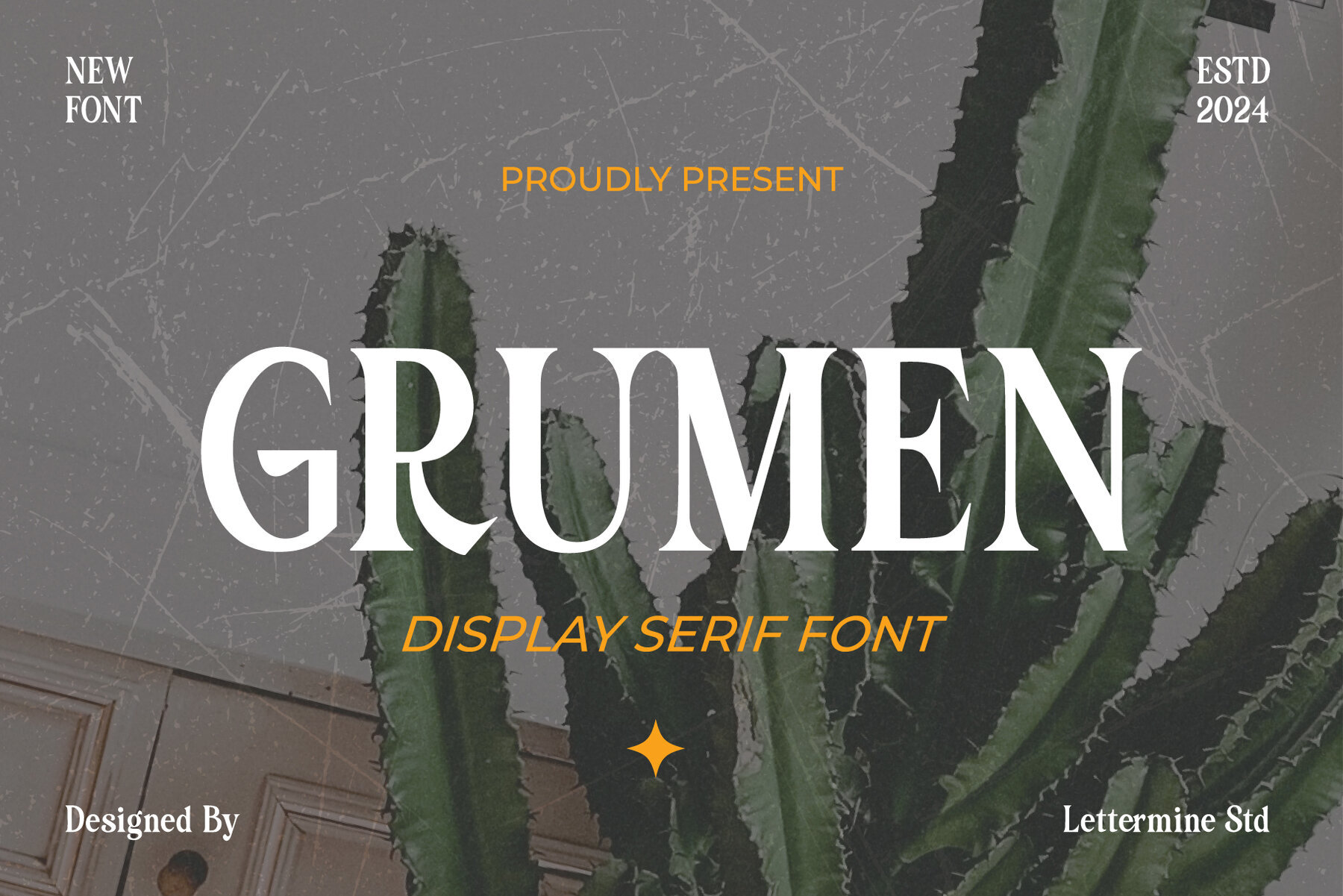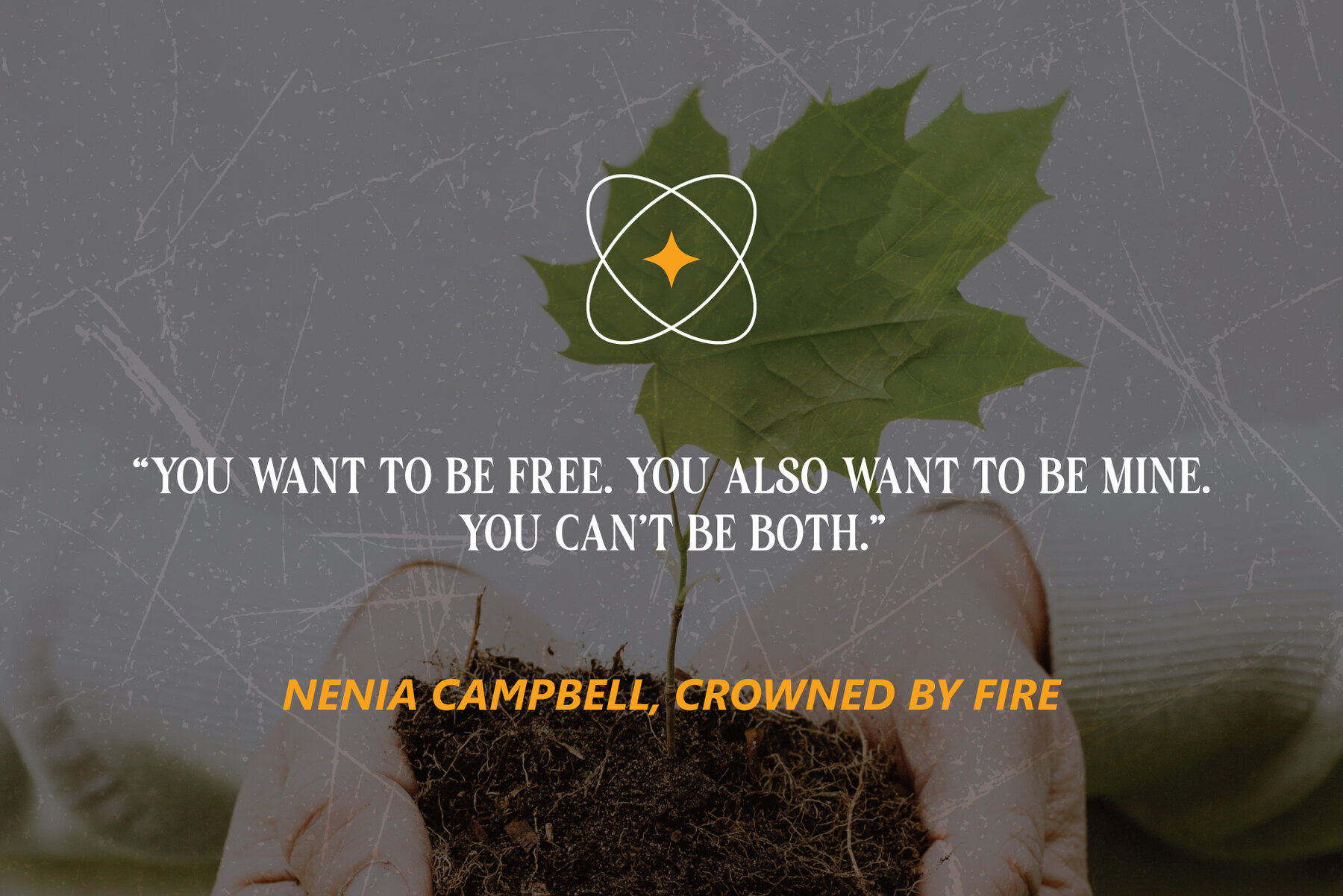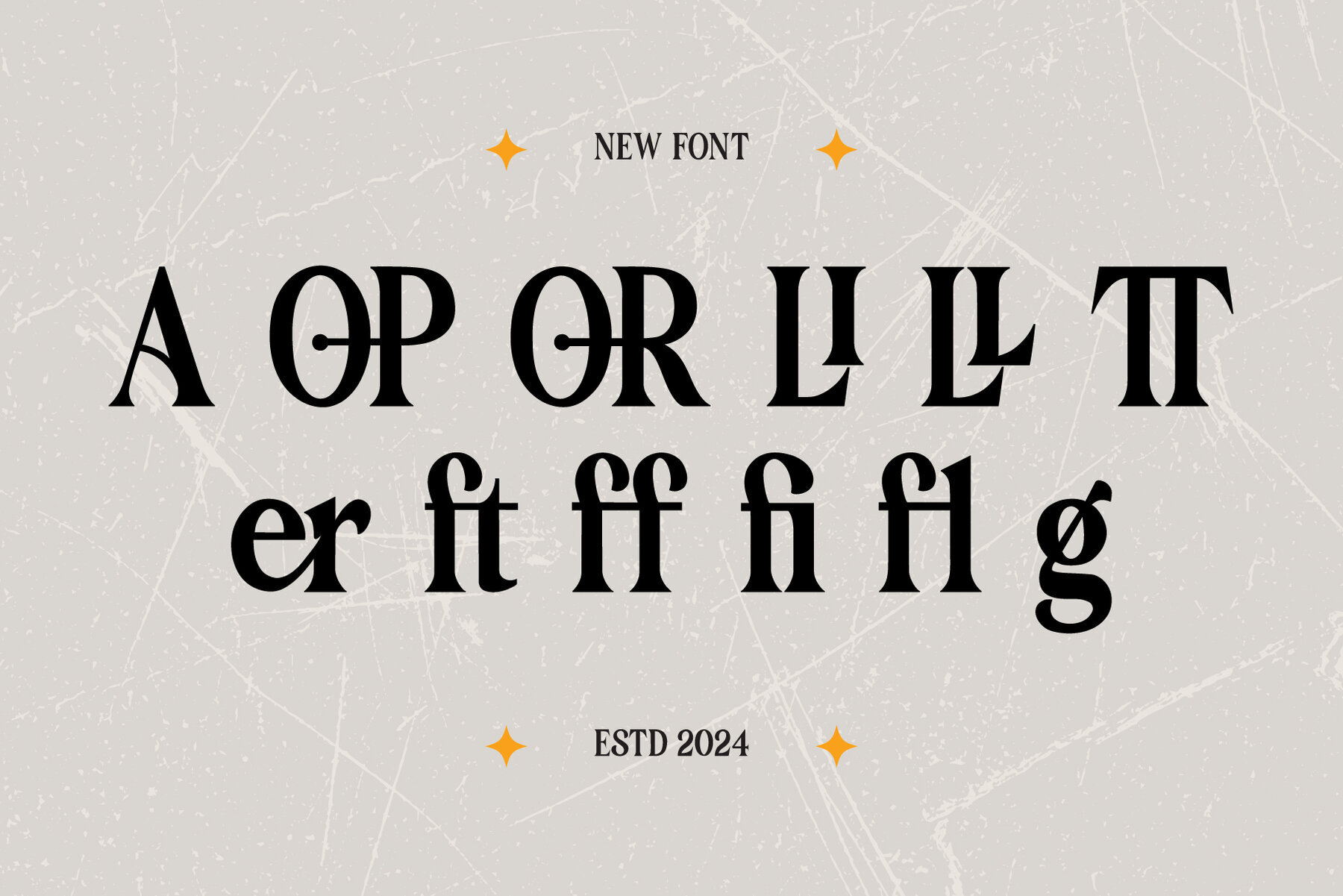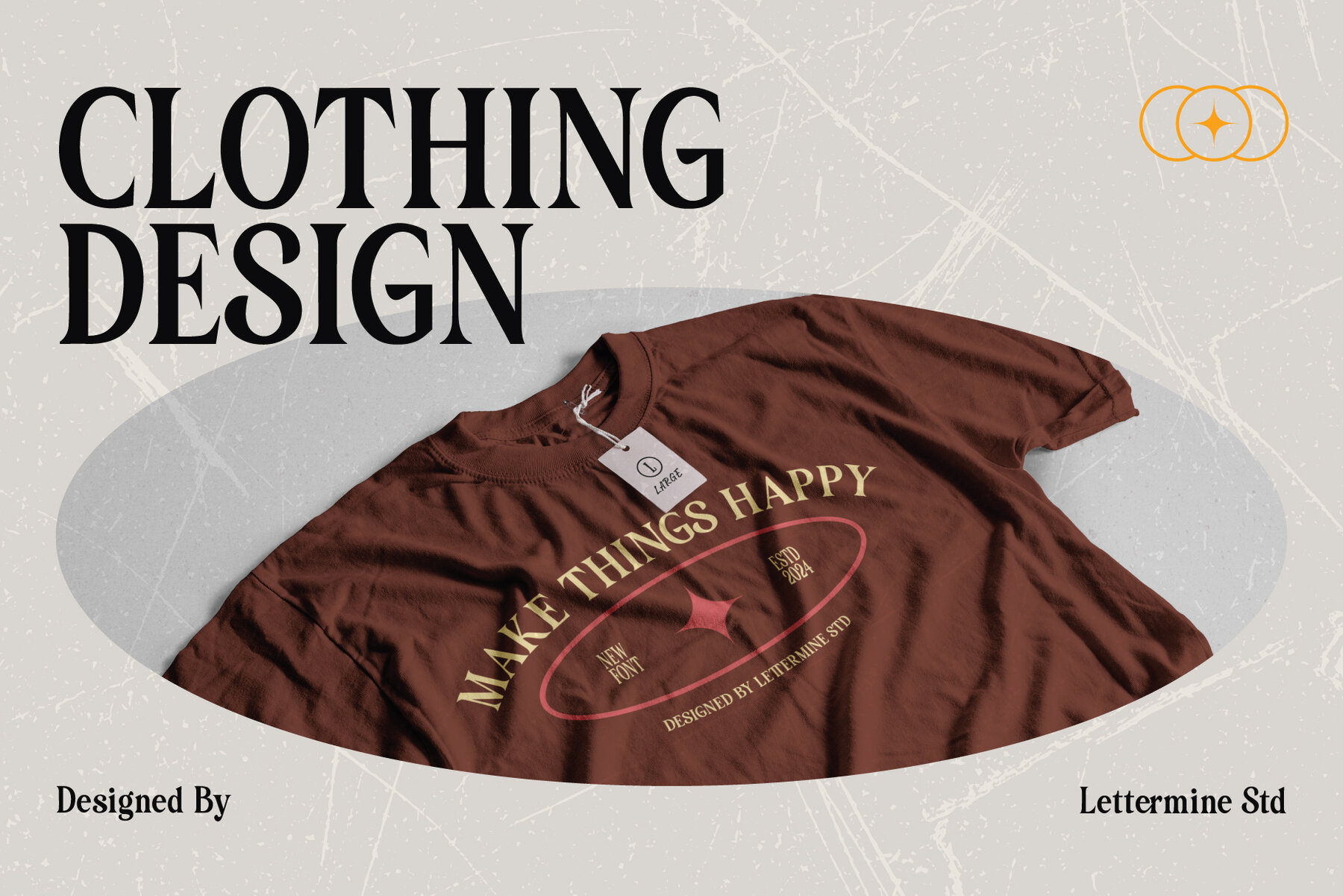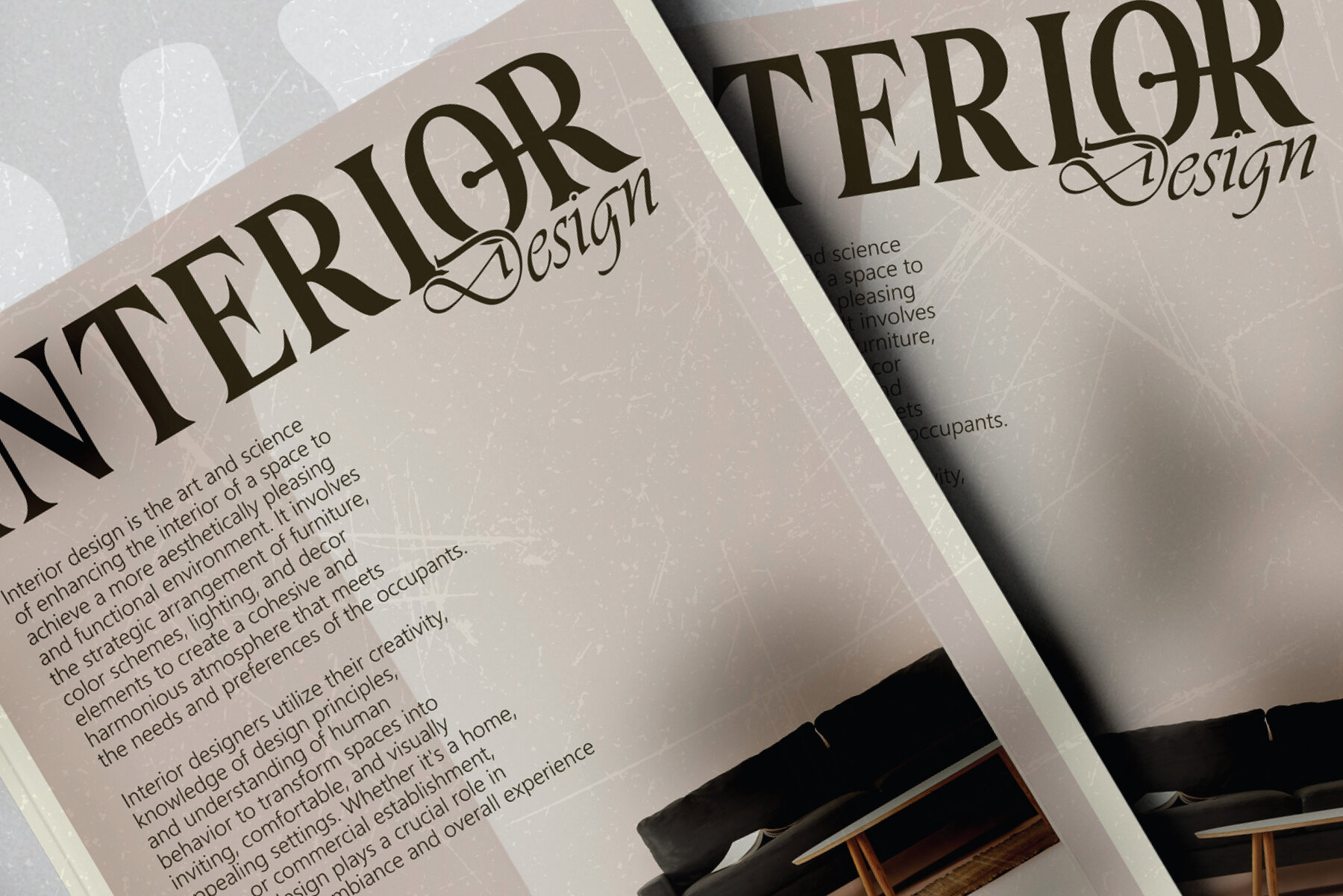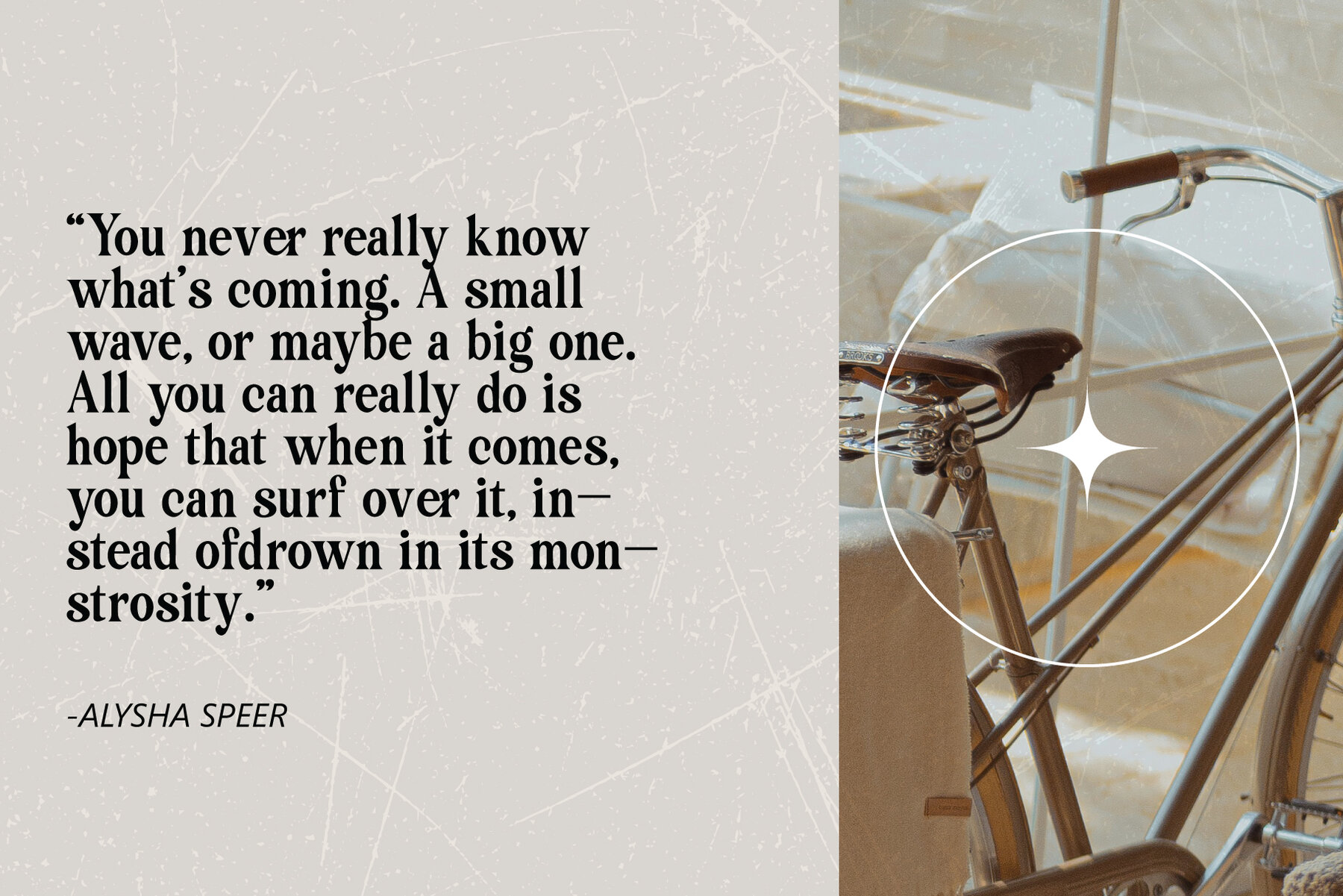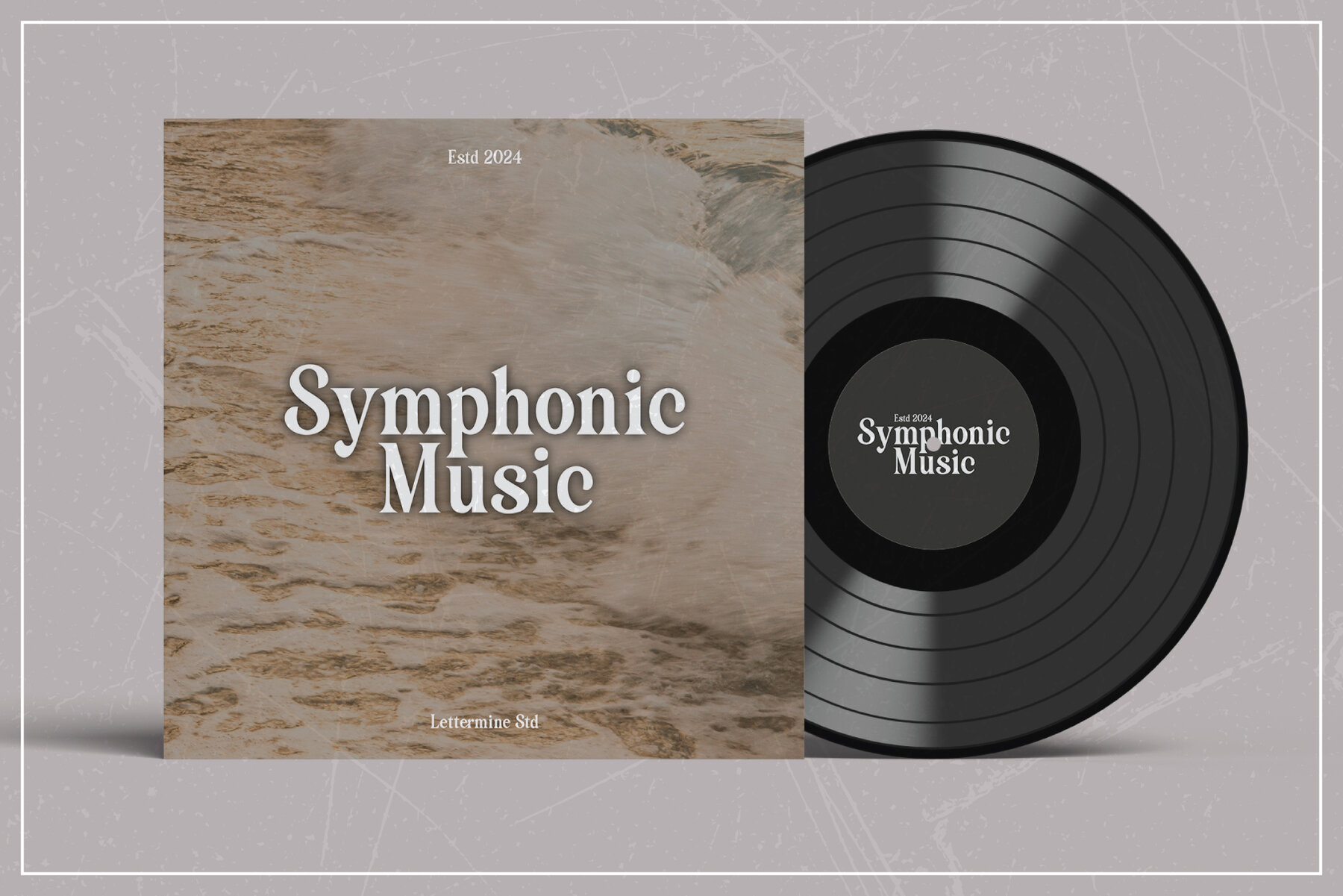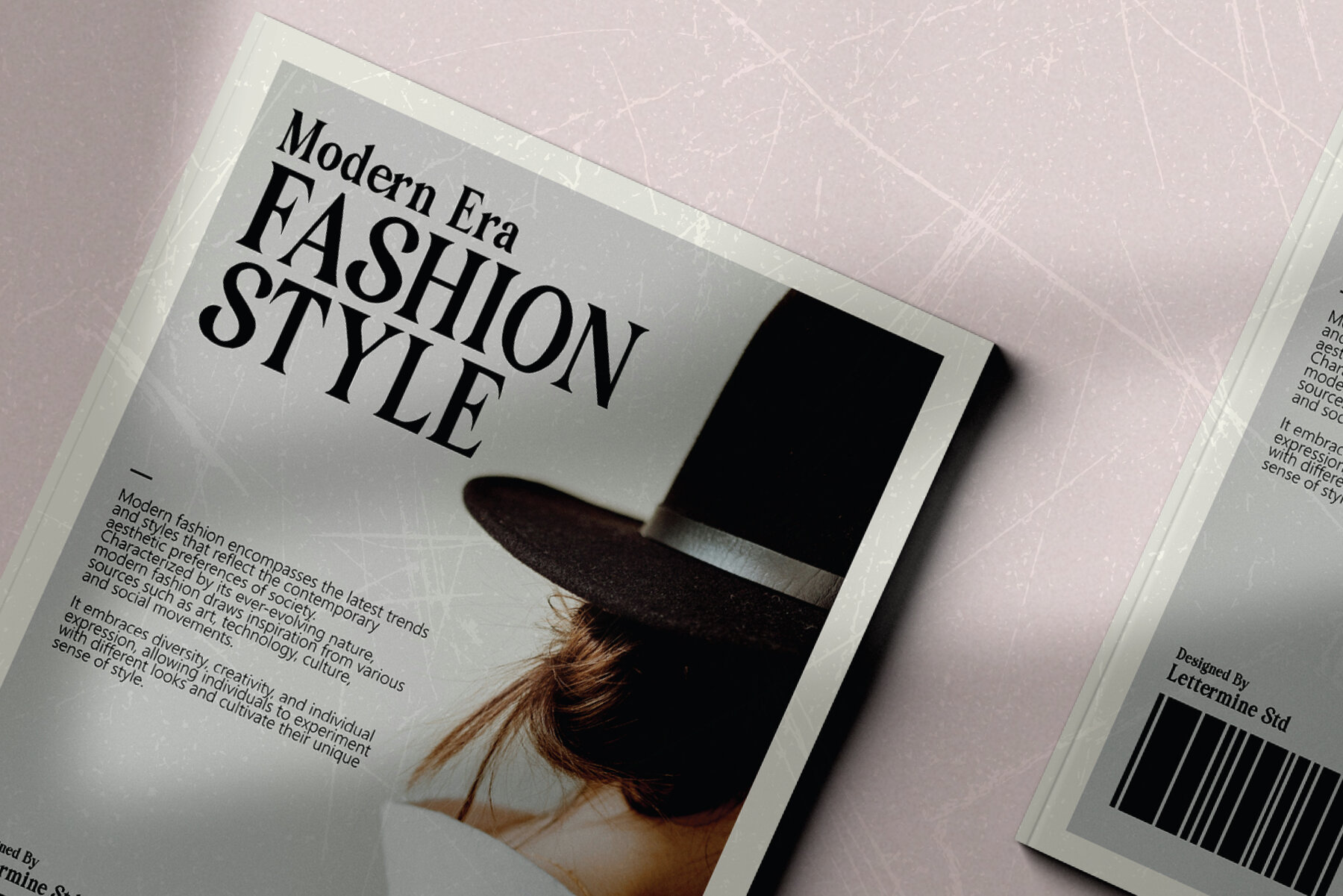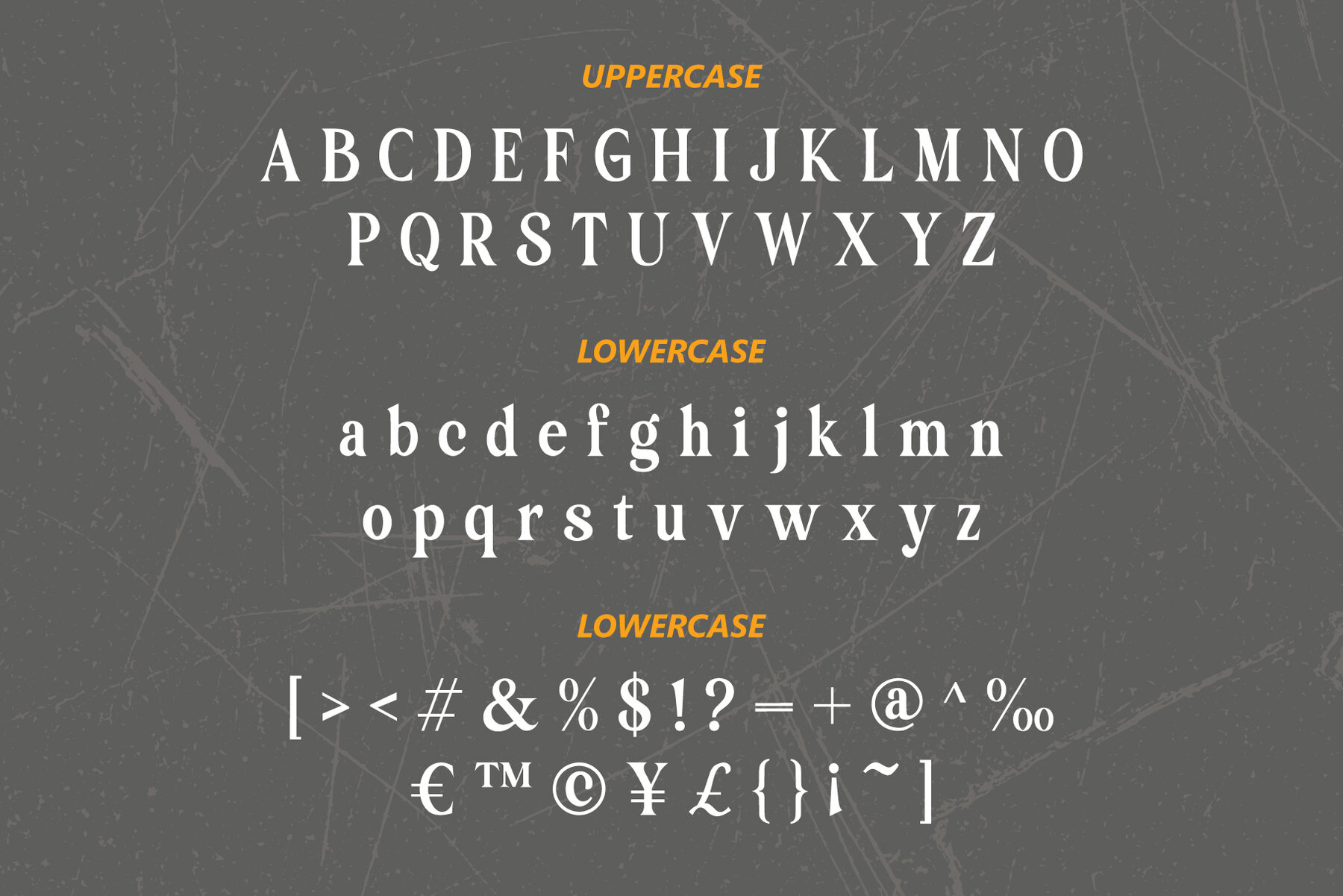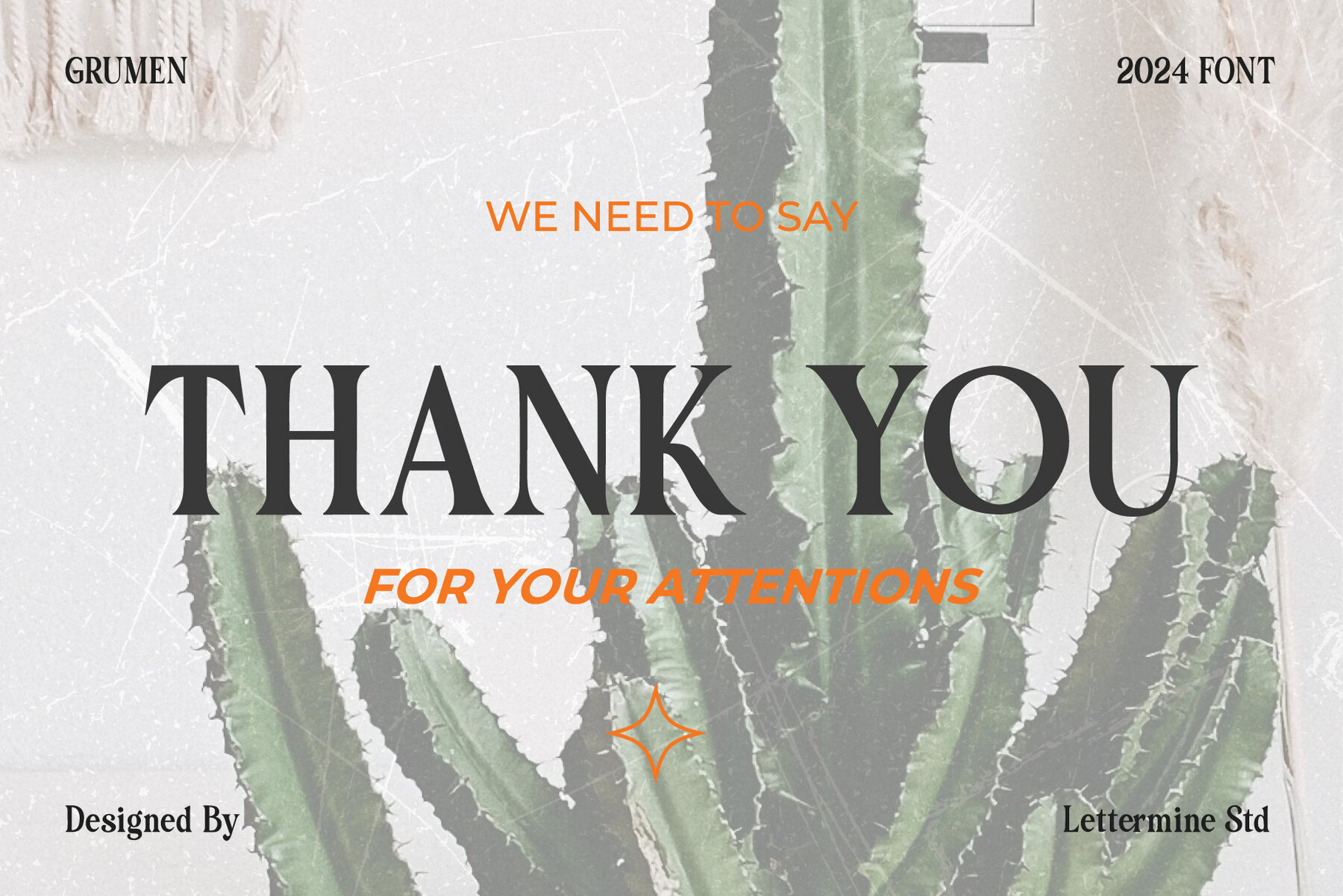
Grumen Font
Grumen Regular
This font is a display, transitional serif with high-contrast strokes, which give it an elegant and dramatic presence. It combines the traditional authority of serif typefaces with a contemporary clean finish, making it suitable for a wide range of applications—from headlines and editorials to branding and advertising. Its bold structure and refined aesthetics provide designers with a versatile tool to create impactful and readable designs.